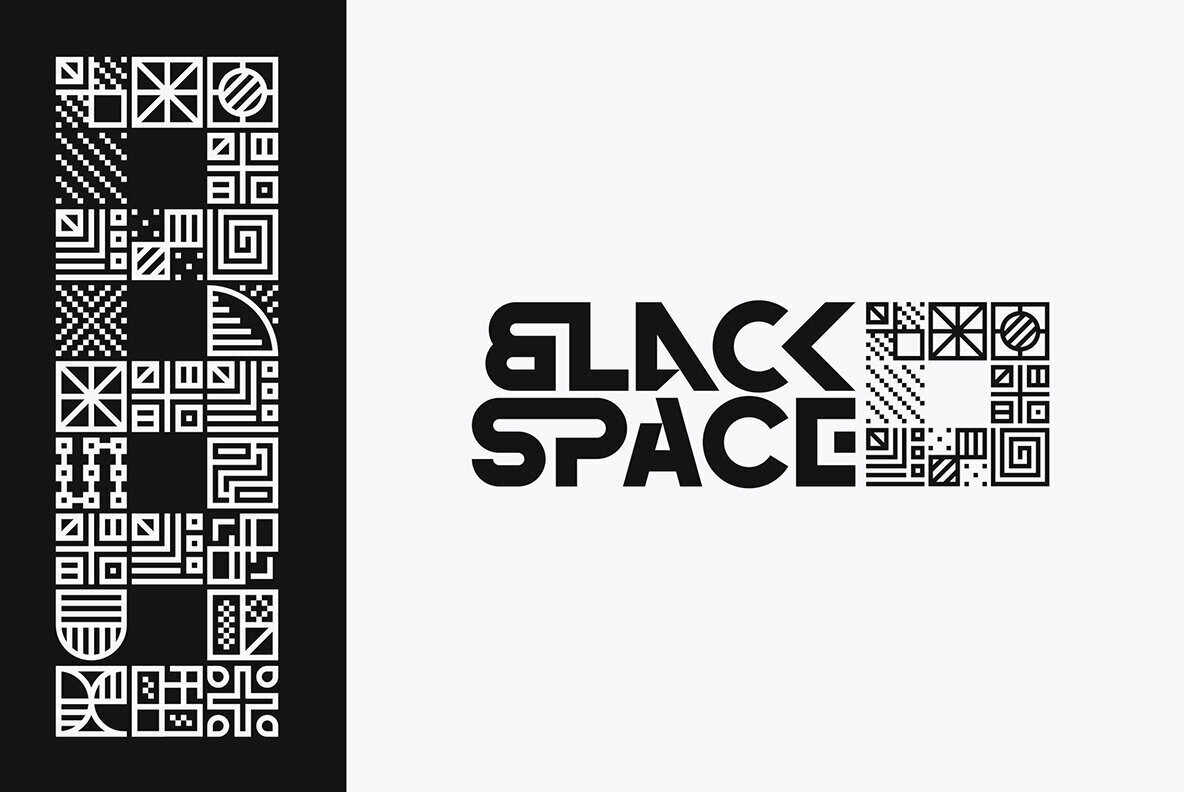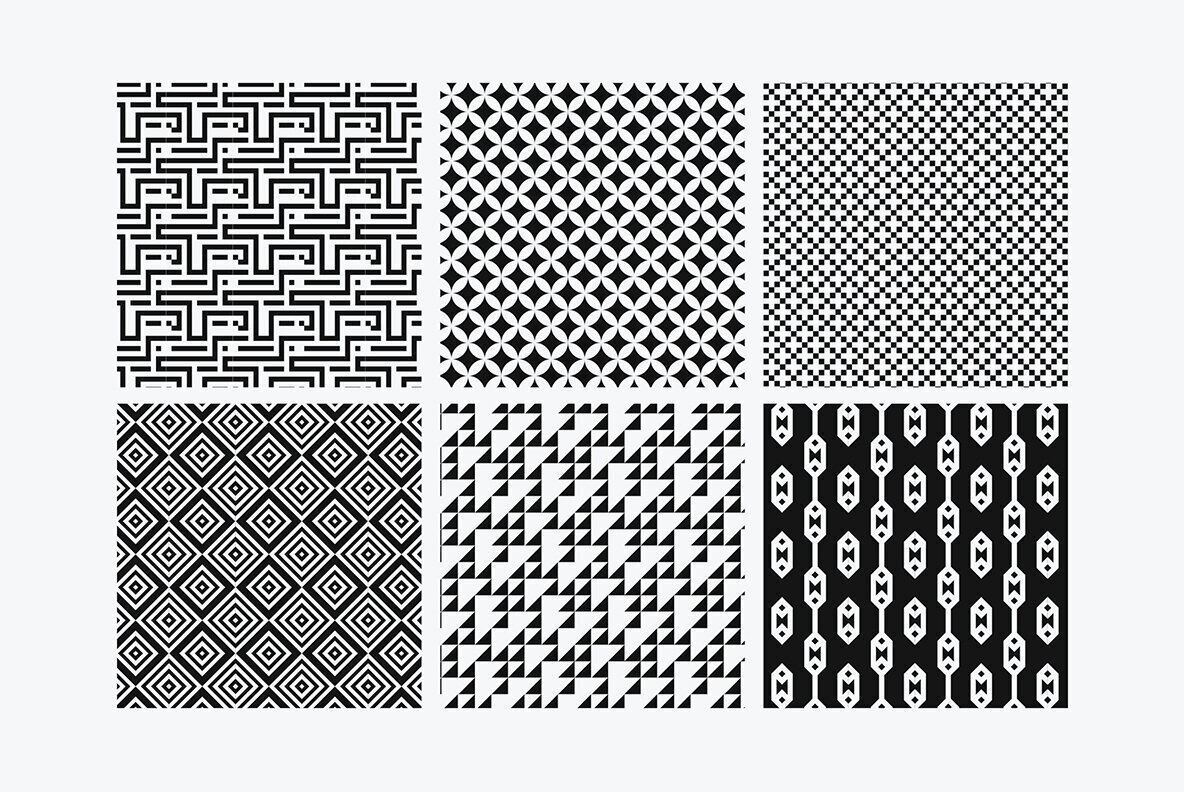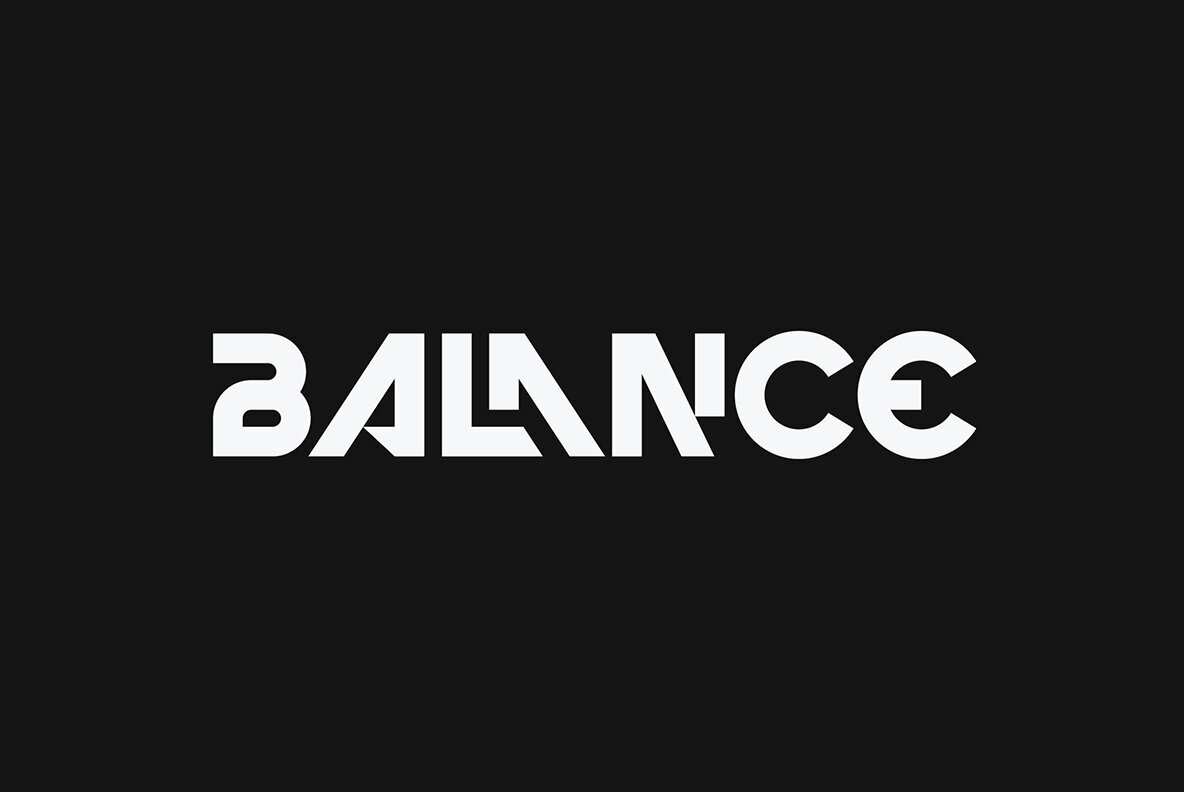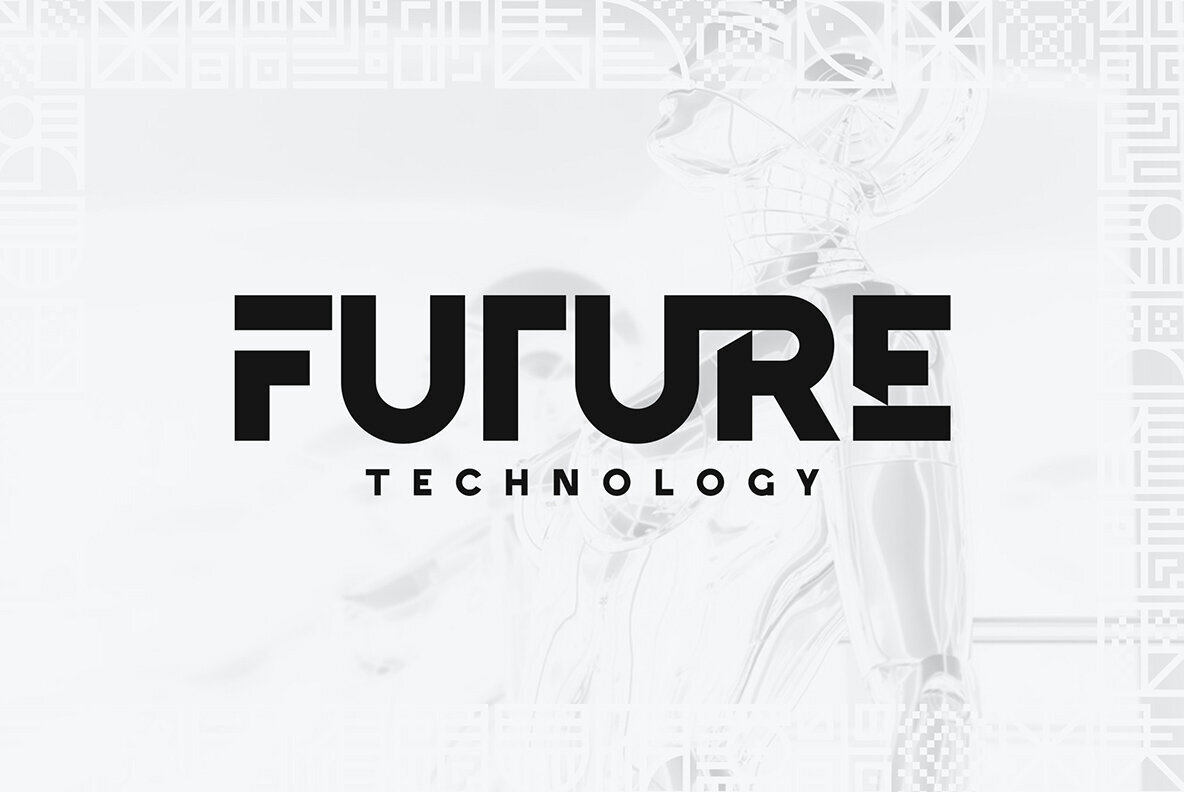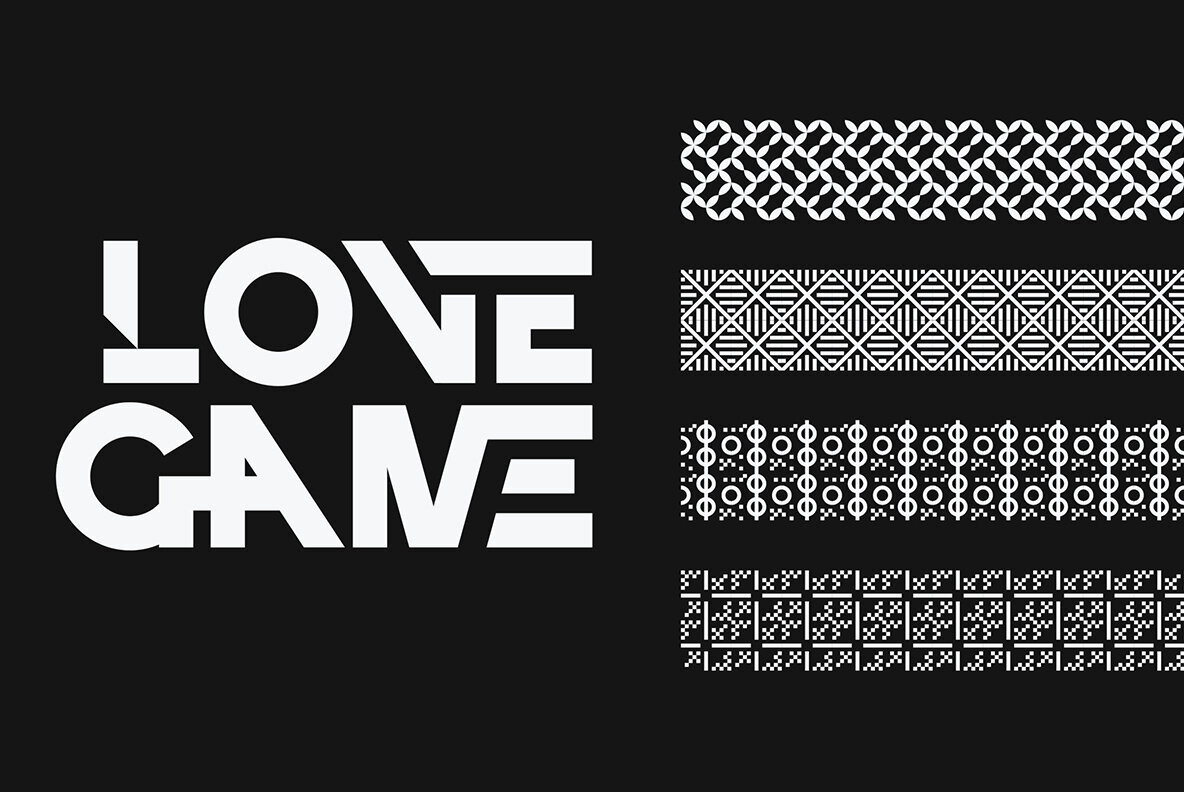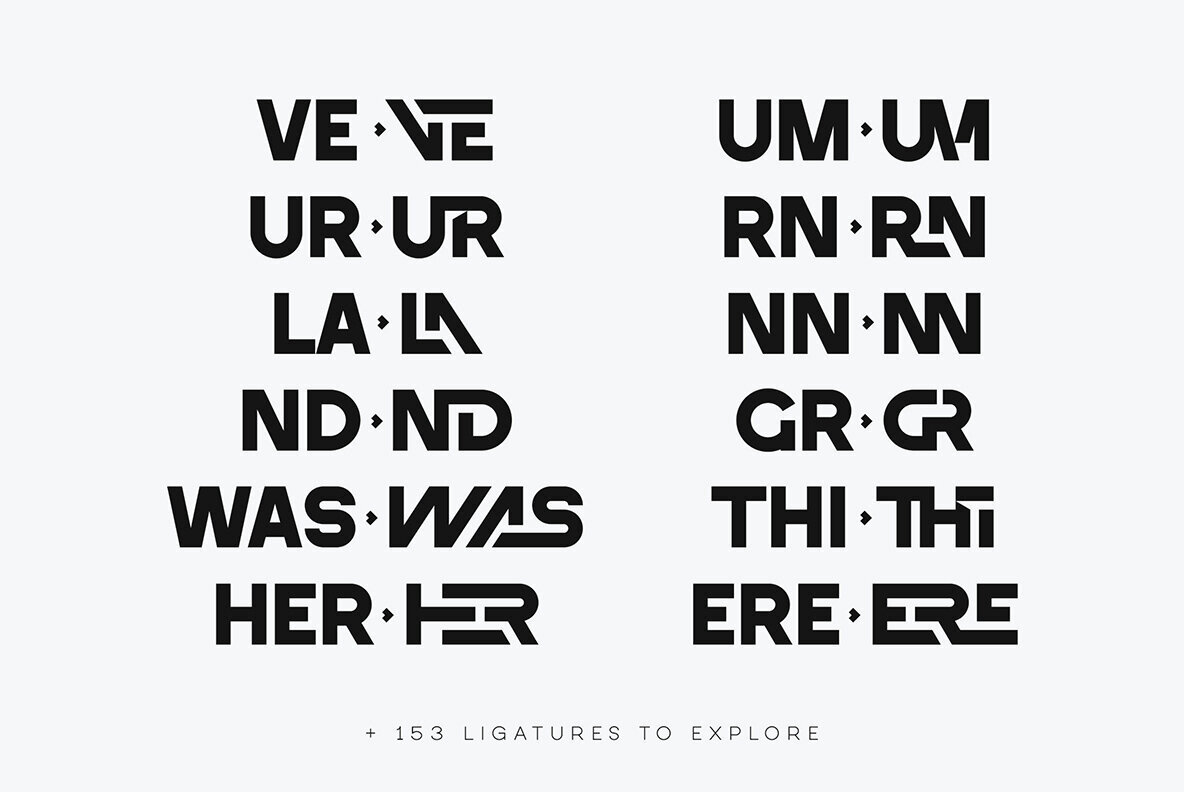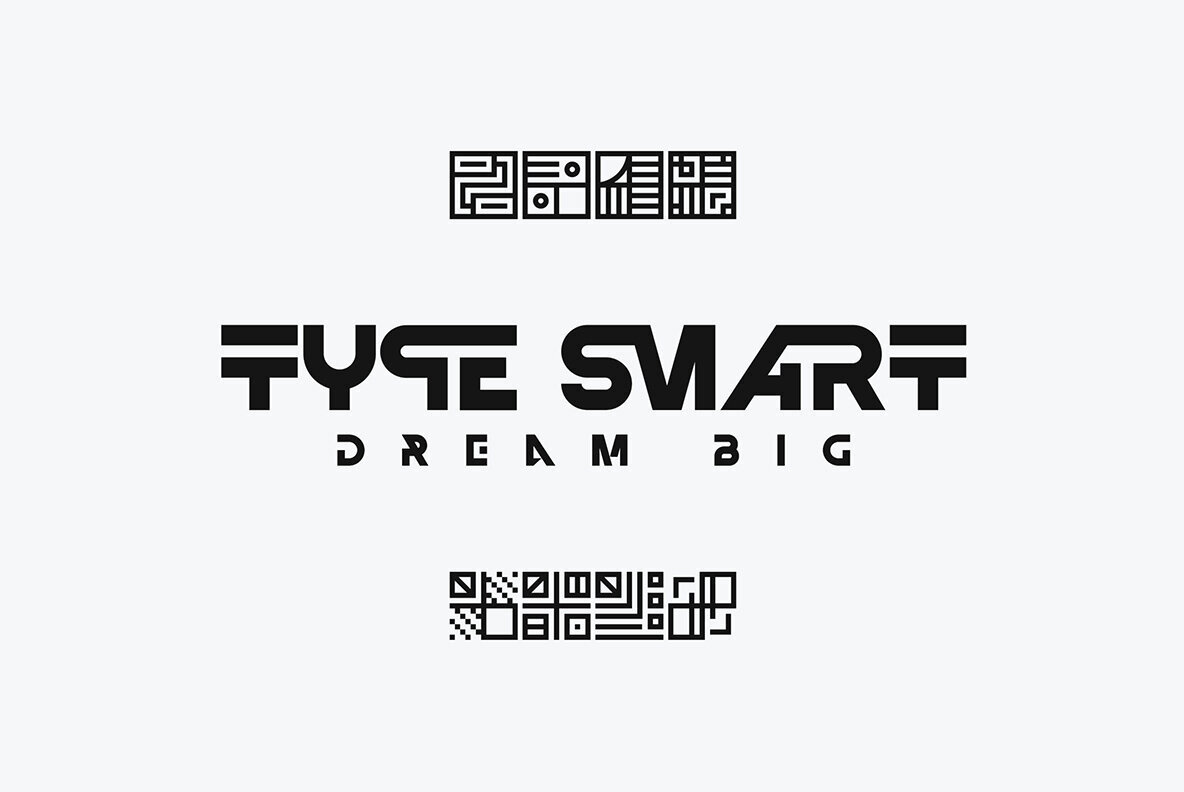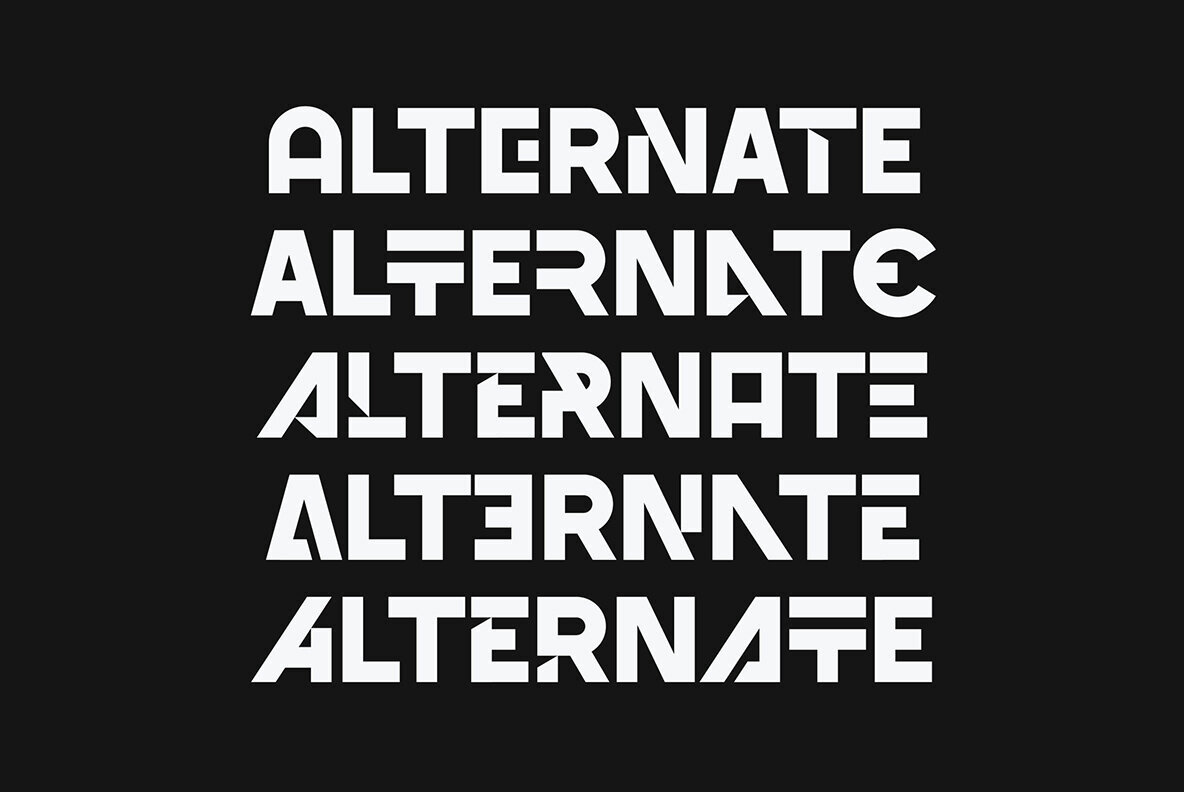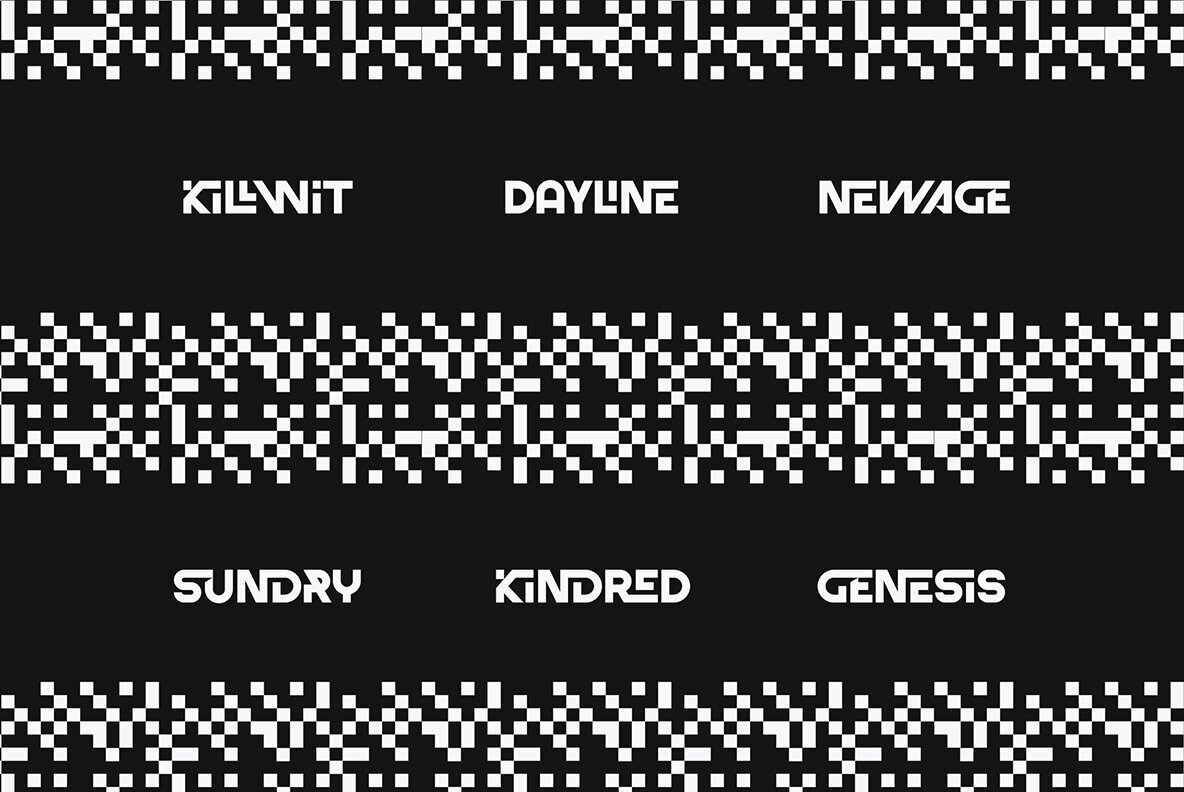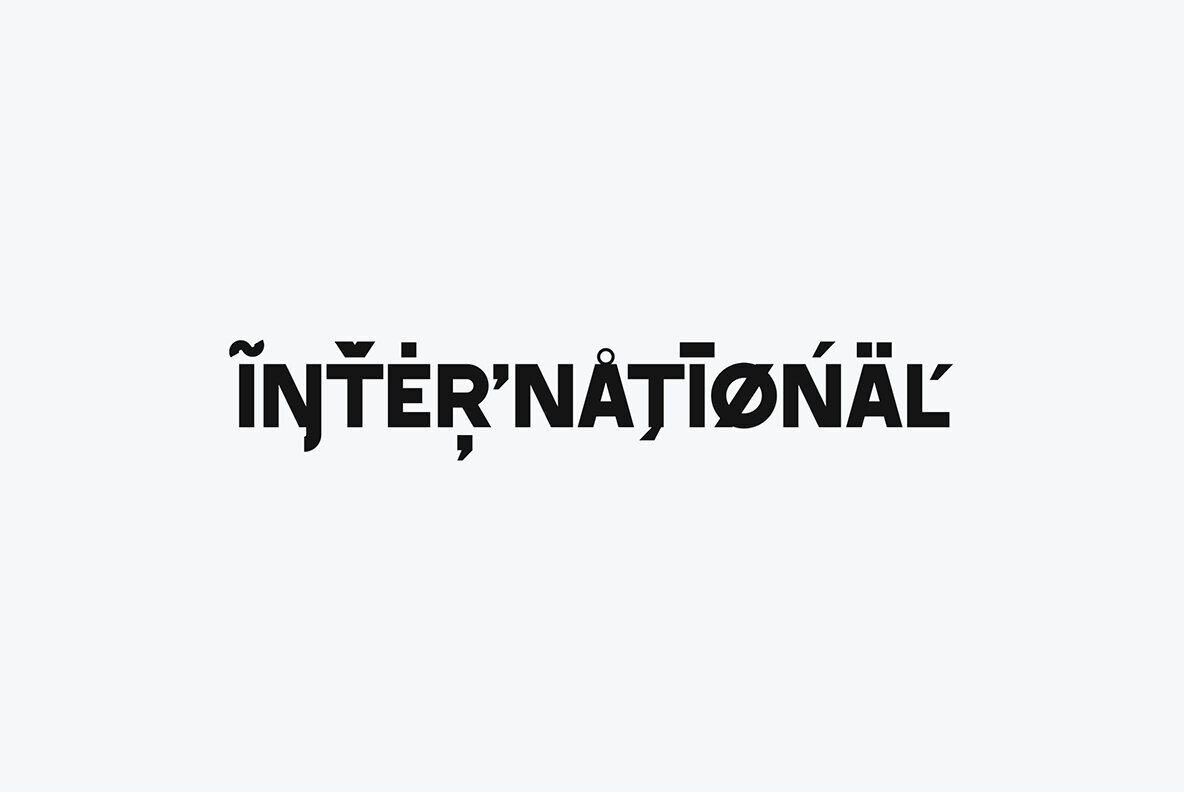
Brand Type Font
Brand Type Regular
Brand Type Minimal Patterns
Brand Type Pattern Tyles
Brand Type is a wonderfully versatile and creatively rich logo font that's sure to make your brand or project stand out. With over 150 ligature glyphs and a wide array of alternate glyphs, it offers endless possibilities for customizing your text. This font is not just visually appealing but also highly functional, as it supports 87 languages, making it suitable for a global audience. But that's not all – Brand Type goes above and beyond by offering 52 mosaic tiles and 26 patterns designed as fonts. This unique feature allows you to seamlessly incorporate intricate designs and captivating patterns into your text, adding a touch of elegance and sophistication to your branding or creative projects. Whether you're crafting a logo, a striking headline, or any other design element, Brand Type empowers you to infuse your work with personality and style, making it an excellent choice for designers and creators looking to make a memorable impression. Language Support : Afrikaans, Albanian, Asu, Basque, Bemba, Bena, Breton, Chiga, Colognian, Cornish, Czech, Danish, Dutch, Embu, English, Estonian, Faroese, Filipino, Finnish, French, Friulian, Galician, Ganda, German, Gusi,i Hungarian, Indonesian, Irish, Italian, Jola-Fonyi, Kabuverdianu, Kalenjin, Kamba, Kikuyu, Kinyarwanda, Latvian, Lithuanian, Lower Sorbian, Luo, Luxembourgish, Luyia, Machame, Makhuwa-Meetto, Makonde, Malagasy, Maltese, Manx, Meru, Morisyen, North Ndebele, Norwegian, Bokmål, Norwegian, Nynorsk, Nyankole, Oromo, Polish, Portuguese, Quechua, Romanian, Romansh, Rombo, Rundi, Rwa, Samburu, Sango, Sangu, Scottish, Gaelic, Sena, Shambala, Shona, Slovak, Soga, Somali, Spanish, Swahili, Swedish, Swiss, German, Taita, Teso, Turkish, Upper, Sorbian, Uzbek (Latin), Volapük, Vunjo, Walser, Welsh, Western Frisian, Zulu Ligature glyphs : ab,ad,af,ai,ak,al,am,an,ar,at,be,bl,ck,co,ea,ec,ee,ef,eg,ei,el,em,en,ep,er,es,et,ev,ew,ex,fa,fe,ff,fi,fl,fr,ft,fv,ga, ge,gh,gi,gl,gr,gu,ha,he,hi,ho,hr,ht,hu,ia,ib,id,ie,if,ip,ir,is,it,ke,ki,kn,ks,la,le,lf,li,lk,ll,lt,ma,mb,me,mm,ms,na, nd,ne,nf,ni,nk,nn,nt,pa,pe,pp,pr,pt,re,ri,rm,rn,rs,se,sh,si,sk,sl,sm,sp,st,su,sa,ta,tw,th,ti,tl,tr,tt,tu,tw,ua,ub,ud, ue,ui,ul,um,up,ur,ut,va,ve,vi,xp,xt,wa,we,wh,wi,ye,yi,men,wer,the,and,her,hat,his,tha,ere,ent,ter,was,ith,ver, all,thi,ult,ght,ave,hav,hey,ati How to access alternate glyphs? To access alternate glyphs in Adobe InDesign or Illustrator, choose Window Type & Tables Glyphs In Photoshop, choose Window Glyphs. In the panel that opens, click the Show menu and choose Alternates for Selection. Double-click an alternate's thumbnail to swap them out.